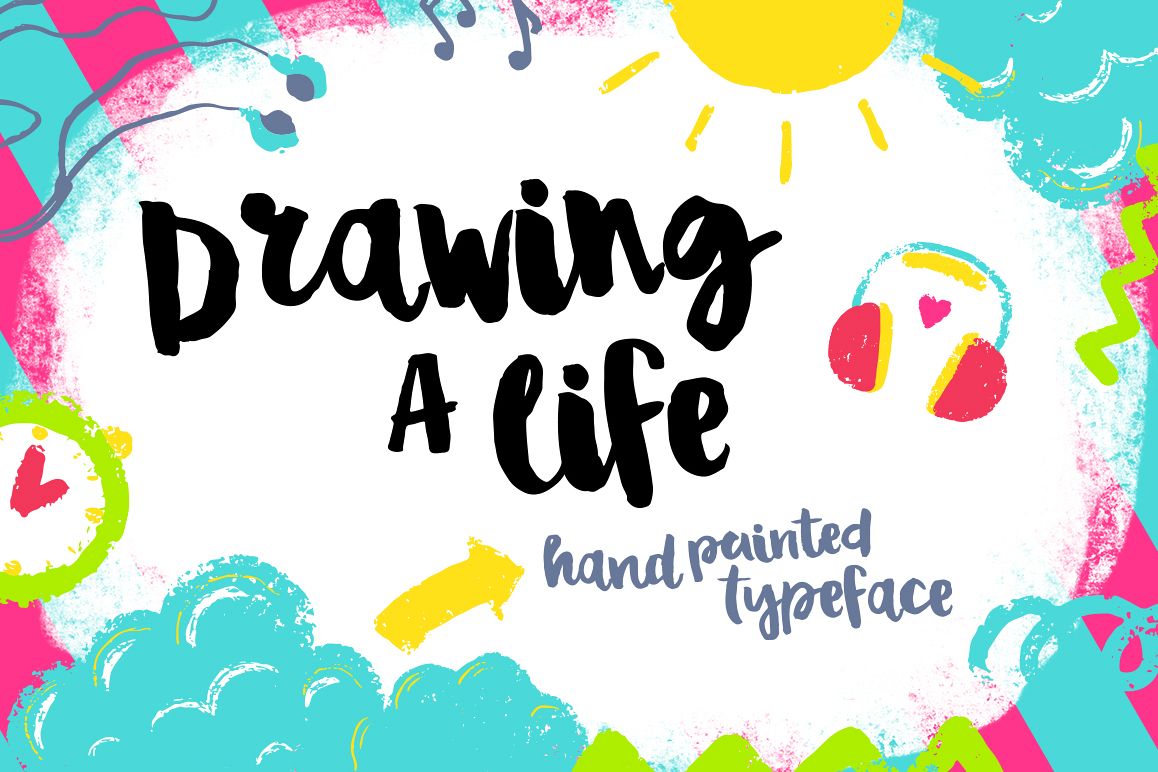
Drawing a Life - Brush Font
Drawing a life
? Drawing a Life - typeface for your amazing progects! Hand drawn script!? This handwritten font is perfect for cards, prints, logos, wedding invitations, arrange illustration and decoration. It has upper and lower case letters, numbers, special characters, accents, alternates and ligatures.You will receive the fonts: